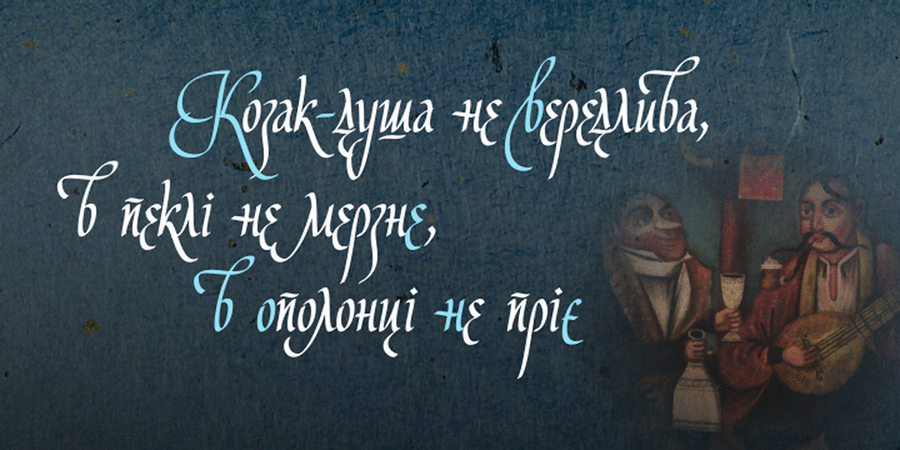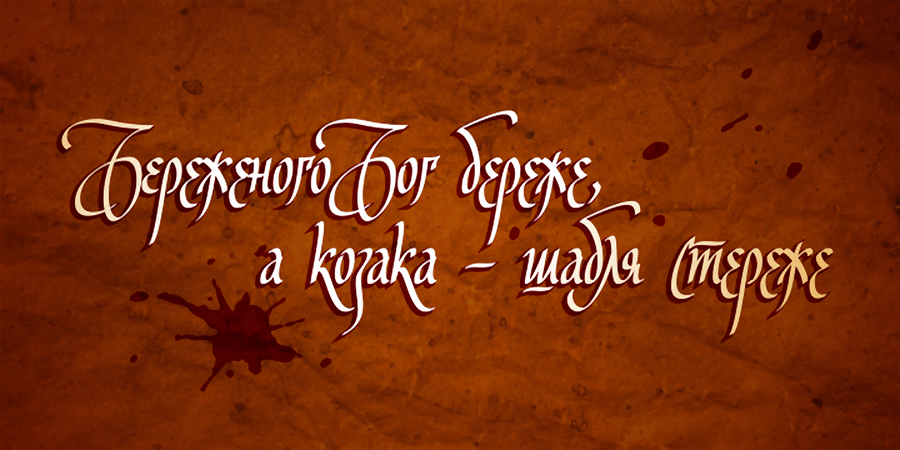
Ukrainian Barokko is a calligraphic typeface. It combines the best traditions of Ukrainian Cyrillic cursive handwriting (Skoropys) of the end of the 17th century and European humanist cursives of that time with a contemporary interpretation by Gennady Zarechnyuk.
The current version of the font contains Cyrillic, Latin, as well as Greek codepages.
It has OpenType features, alternate glyphs and ligatures. The font includes two styles of numerals: lining (or modern) and minuscule oldstyle figures.
Special mention should be made of the presence of initial forms of uppercase letters (for the beginning of a line), which are enabled by the Swash button on the Character palette.
The font Ukrainian Baroque was awarded the 1st prize in the category of display fonts in the Ukrainian typeface competition Ruthenia in 2011.
The typeface was designed by Genadij Zarechnyuk in 2010.
Associations for font family Ukrainian Barokko 2DTypeface personality and character:
historical, craft brewed, man-made, flexible, rustic, conservative, dashing, agile, cheeky, warlike, daring, dynamic, original, freewheeling, plastic, ethnic, natural, traditional, heroic, ancient, Cossack, free, picturesque, alive, temperamental, active, organic, tribal, musical, poetic, lyrical, vegetable, presents, Artisanal, interesting, distinctive, folk, festive, beery, glad, fairy, sweeping
souvenir, bread, bath, honey, history, literature, cinema, vodka, alcohol, reconstruction, folklore, music, dance, chronicle, Cossack, hetman, chieftain, spice, poetry, lyrics, flowers, holiday, Christmas, embroidered, tree, ethnography, nature, tale, legend, ballad, adventures, restaurant, recreation, tattoo, beer, tavern, decoration, celebration, pub, fantasy, bank note, fairy tale, graphics, illustration, landscape, food Typeface exhibits stylistic traits: